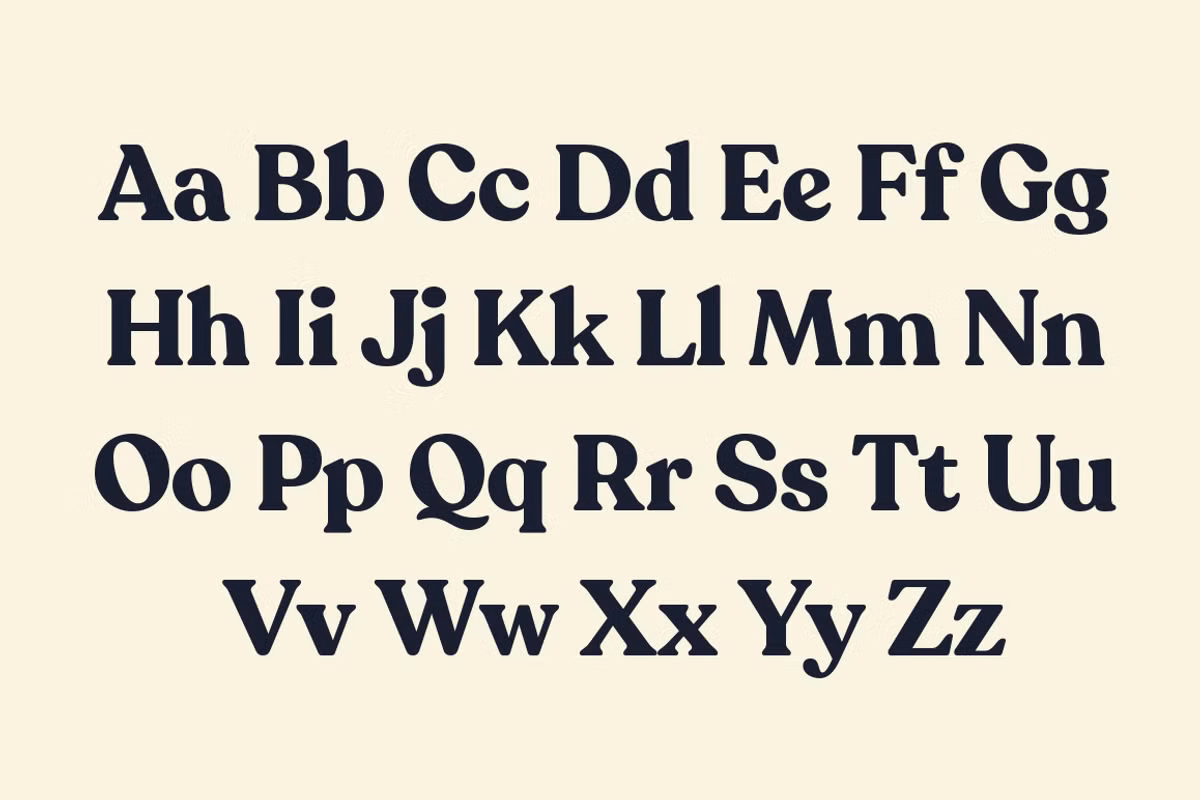
Recoleta: Versatile Typeface with Modern Flavors and Styles
Recoleta is a unique typeface that brings together different styles from popular fonts of the 1970s. It’s like a special recipe that combines the best parts of classic fonts, such as the soft curves of Cooper and the slanted lines of Windsor. This mix of old and new creates a design that feels both nostalgic and modern, making it perfect for many different projects.
With its blend of familiar and fresh elements, Recoleta is a great choice for anyone looking to add some personality to their work. The result is a typeface that is both timeless and contemporary, with a flavor that is all its own. Whether you’re working on a project that needs a touch of vintage charm or a modern twist, Recoleta is a great option to consider.
The Recoleta design style is all about soft, gentle shapes that make you feel warm and welcome. Its curves are really inviting, which makes it perfect for designs that are either casual or super sophisticated.
What’s cool about Recoleta is that it takes elements from old-school typefaces from the 1970s and mixes them with a modern twist that people today love. This blend of old and new makes it a great choice for a wide range of design projects.
Whether you’re going for a relaxed, laid-back vibe or something more elegant, Recoleta’s got you covered. Its unique style is all about creating a sense of approachability and warmth, making it an excellent option for designers who want to connect with their audience on a deeper level.
Character Sets
One of the standout features of Recoleta is its extensive character set, which now includes support for Russian Cyrillic. This expansion opens up a world of possibilities for designers and brands looking to reach a broader audience.
The character set includes a variety of stylistic alternates, offering unique characters that can differentiate your logo or business card from the competition. The design of Recoleta is carefully thought out, with each character made to be consistent and of high quality.
Recoleta is really flexible, which makes it perfect for lots of different situations and industries. Let’s take a look at some examples where this font really stands out:
- Branding: The modern yet familiar look of Recoleta makes it ideal for branding projects.
- Advertising: Use Recoleta in advertisements to capture attention with impactful headlines.
- Web Design: The typeface’s versatility makes it a great choice for web applications.
- Print Media: Whether it’s brochures, flyers, or business cards, Recoleta allows for creative freedom.
The heavier weights are particularly effective for drawing in viewers, while lighter weights work well for body text. Its readability across various screen sizes ensures that your content is accessible and engaging.
When working with Recoleta, pairing it with complementary typefaces can enhance your design further. Here are some recommended pairings:
- Recoleta & Montserrat: Modern contrast with geometric sans-serif design.
- Recoleta & Lora: Creates a sophisticated and elegant look.
- Recoleta & Raleway: Balances Recoleta’s curves with clean lines.
When you combine fonts in a way that looks good, it makes your designs more visually appealing and easier to read, which creates a nice experience for the people looking at them.
Recoleta is more than just a typeface – it’s a powerful tool to boost your design work with its fresh and modern feel. What makes it special is the way it combines different influences, has a huge range of characters, and comes in many different weights.
This means it can handle all sorts of design tasks, whether you’re working on a brand, an ad, a website, or a print project. Recoleta gives you the freedom to create amazing visuals, no matter what kind of design you’re doing.